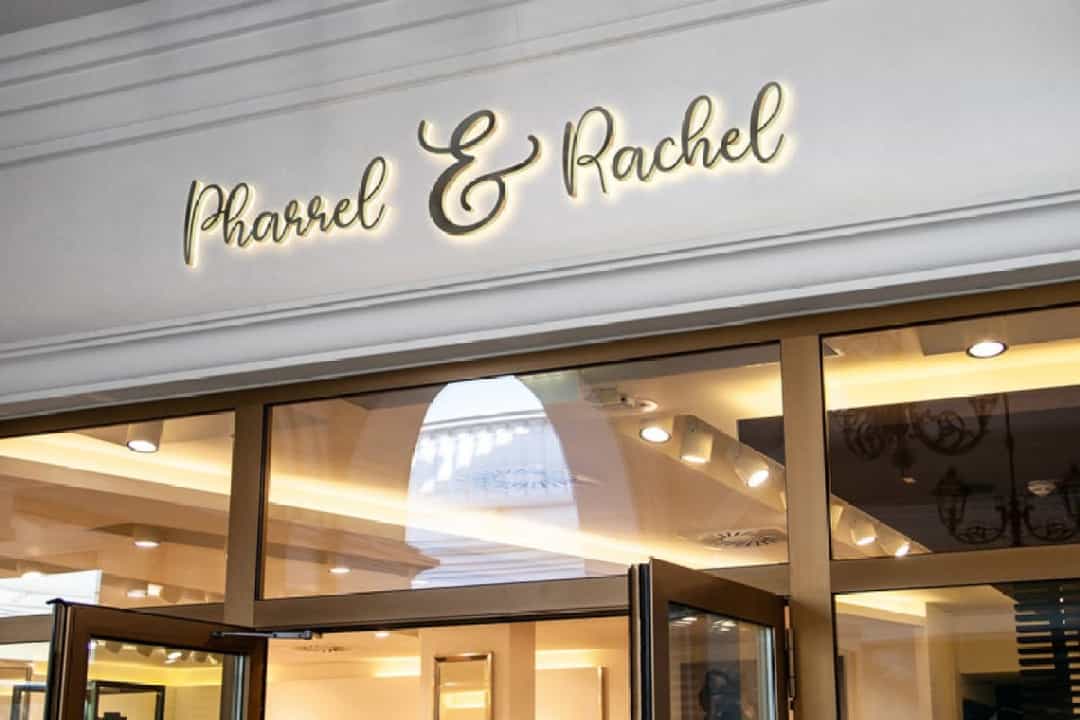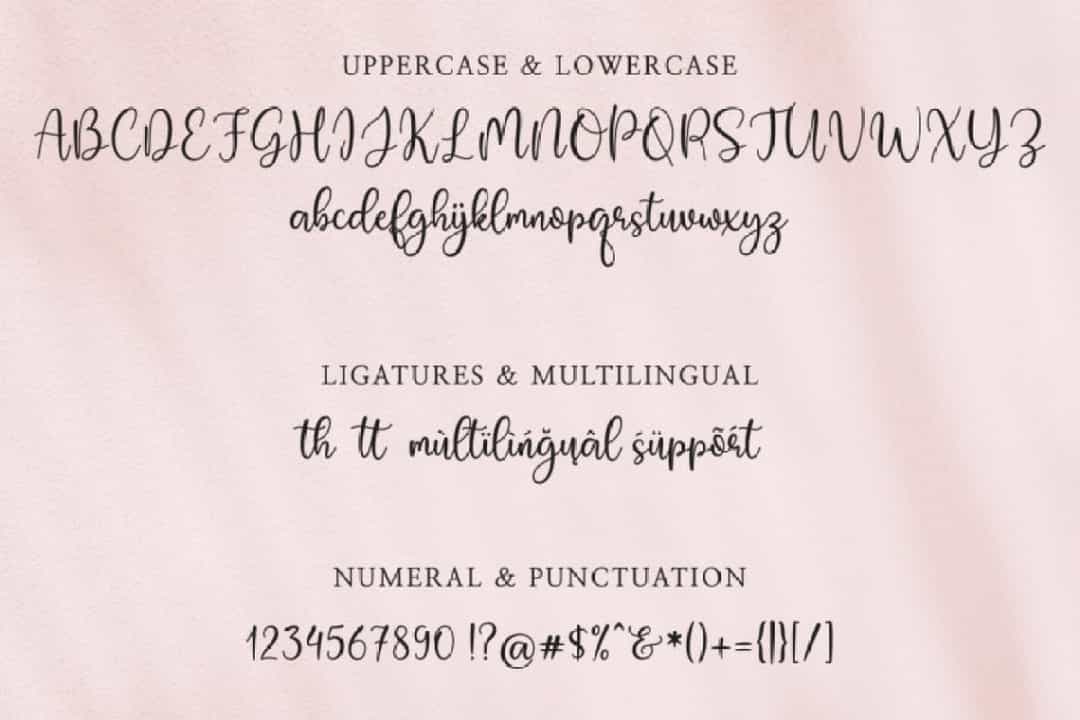
This elegant modern calligraphy typeface has an easy going handwritten feel to it which makes it perfect for wedding invitations, logos, gift certificates, logos, photographs, watermarks, packaging, and handwritten quotes. Aqeela font includes three beautiful sets of stylistic alternates which connect lowercase swashes to hearts (ss01) and beginning and ending swashes (ss02 and ss03).